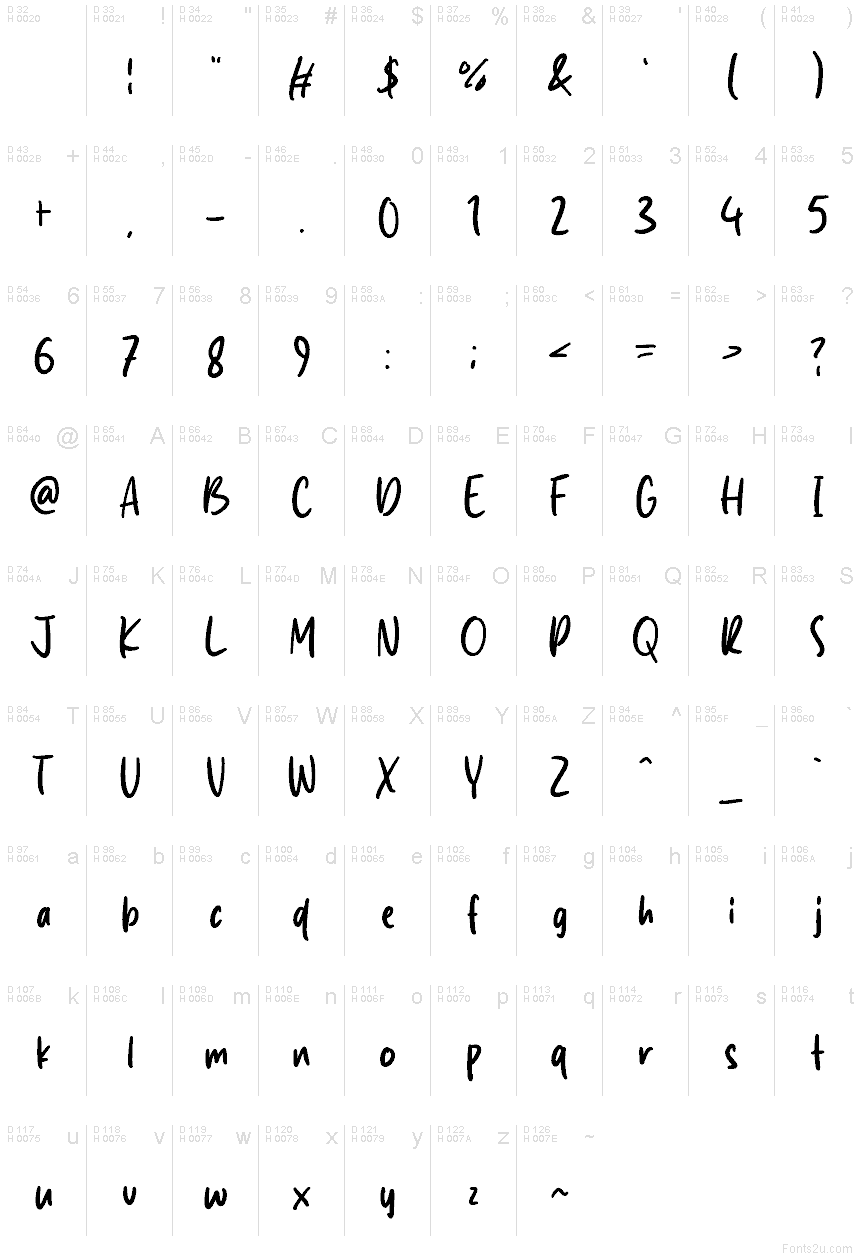
Mister Summer
\nMister Summer font is a free handwritten font by Origin Type with distinctive outlines and a casual feel. The font balances between impression and readability, which makes it appropriate for most occasion types. Friendly, approachable, fashionable, contemporary, fun, & cheerful are some of the words that define the unique characteristics of this script typeface.
The suggested use cases for Mister Summer include texts on packaging or boxes to print designs of products such as tea, sugar-free smarties chocolates, organic cookies ‘n’ creams chocolate truffles candies. Other artistic uses would be invitational cards’ text reading such as birthday parties invitations or children’s celebrations cards.